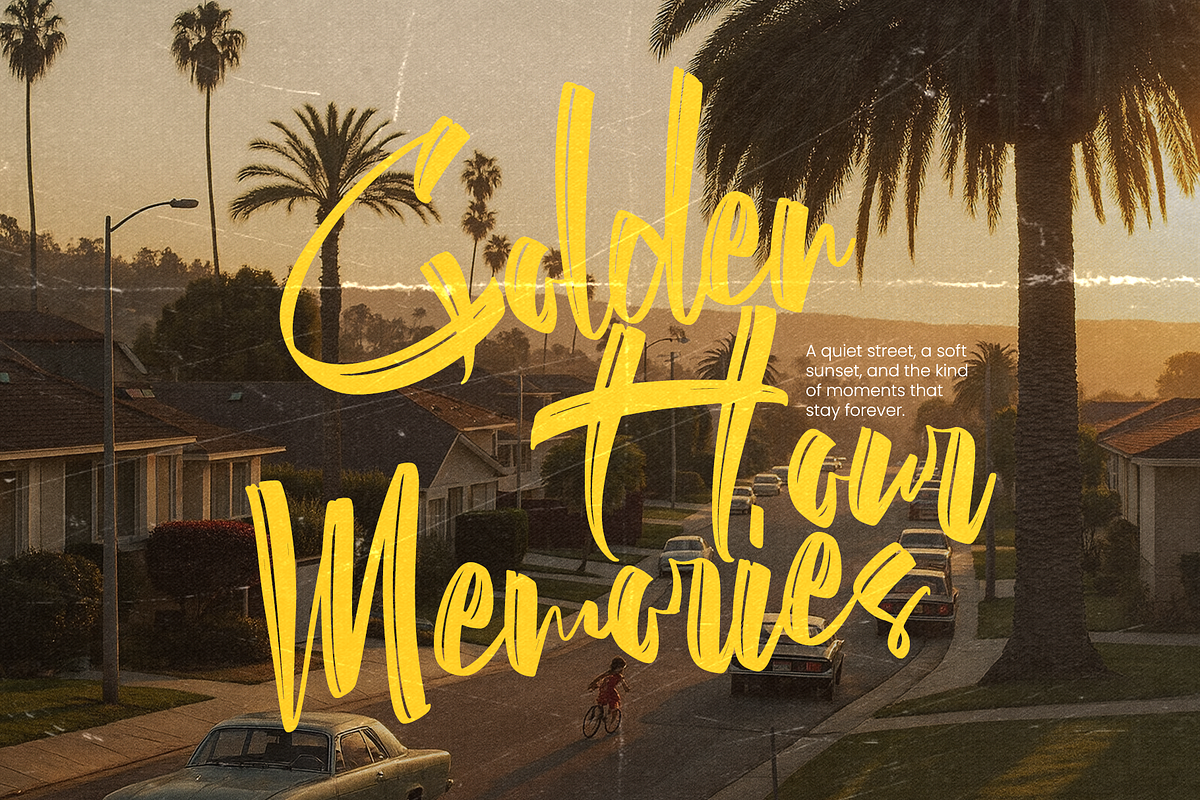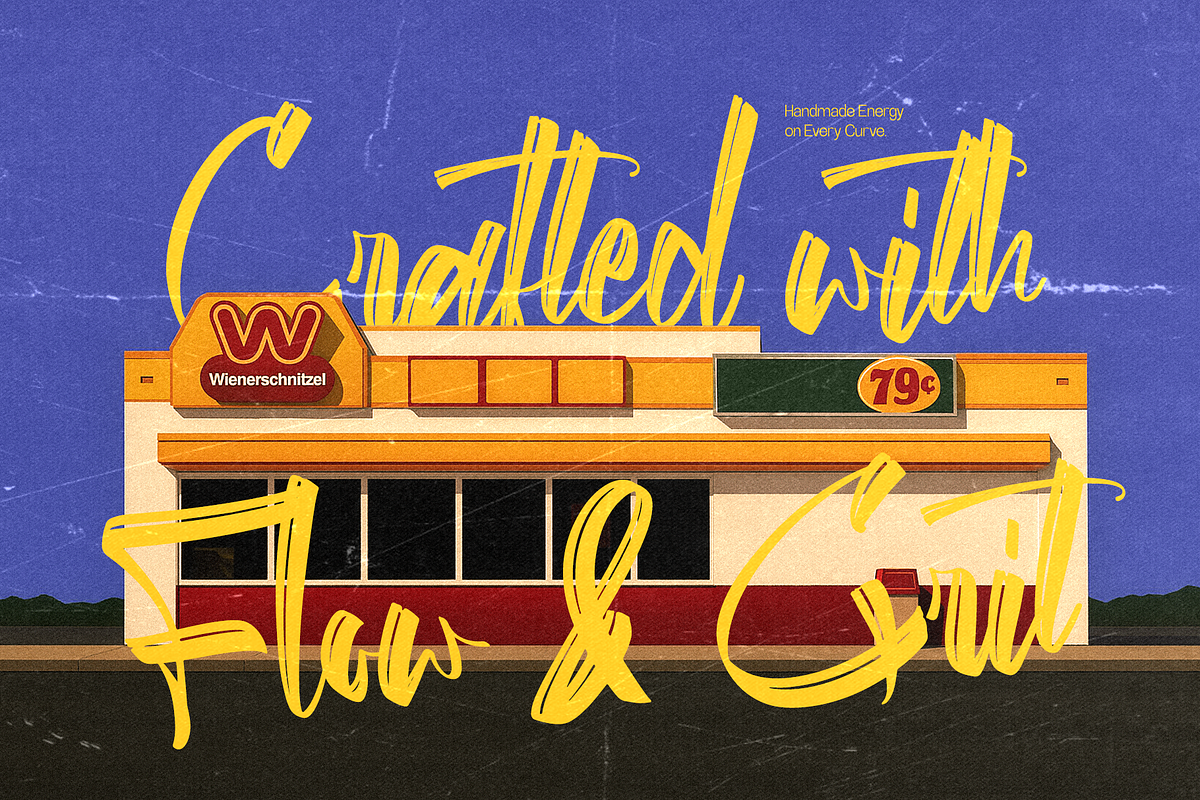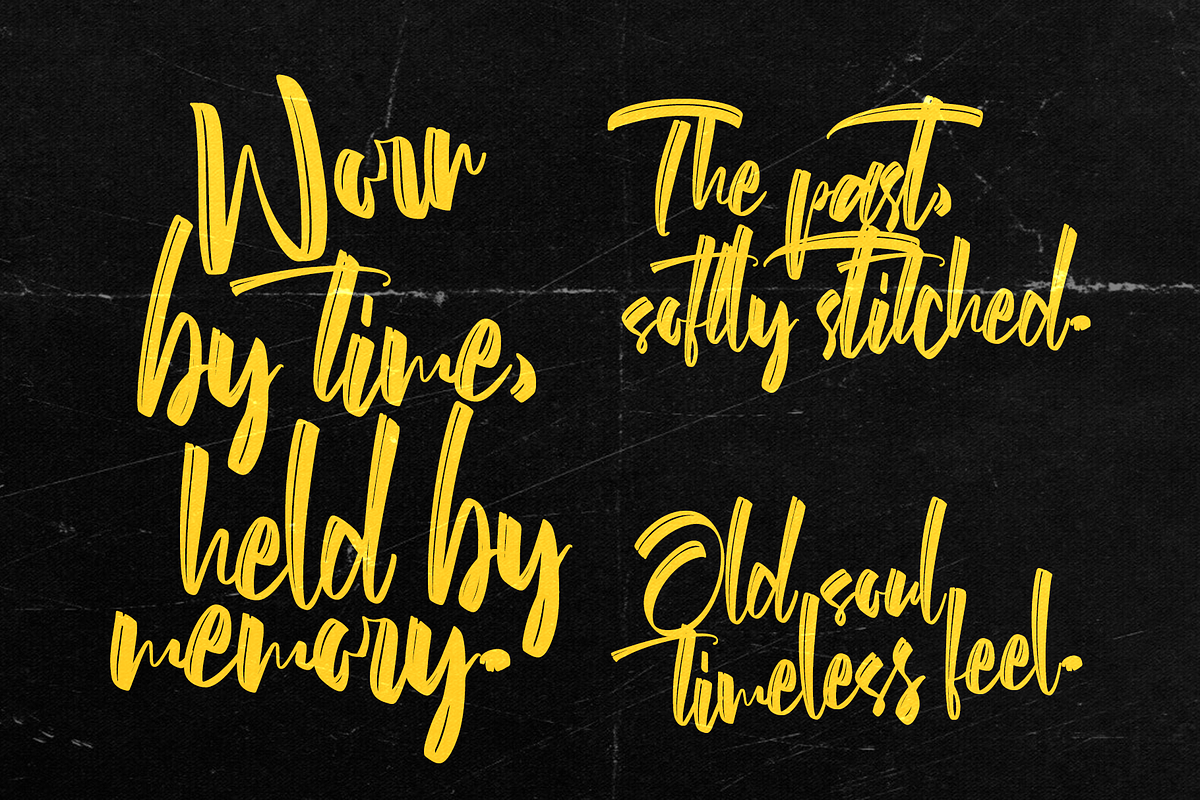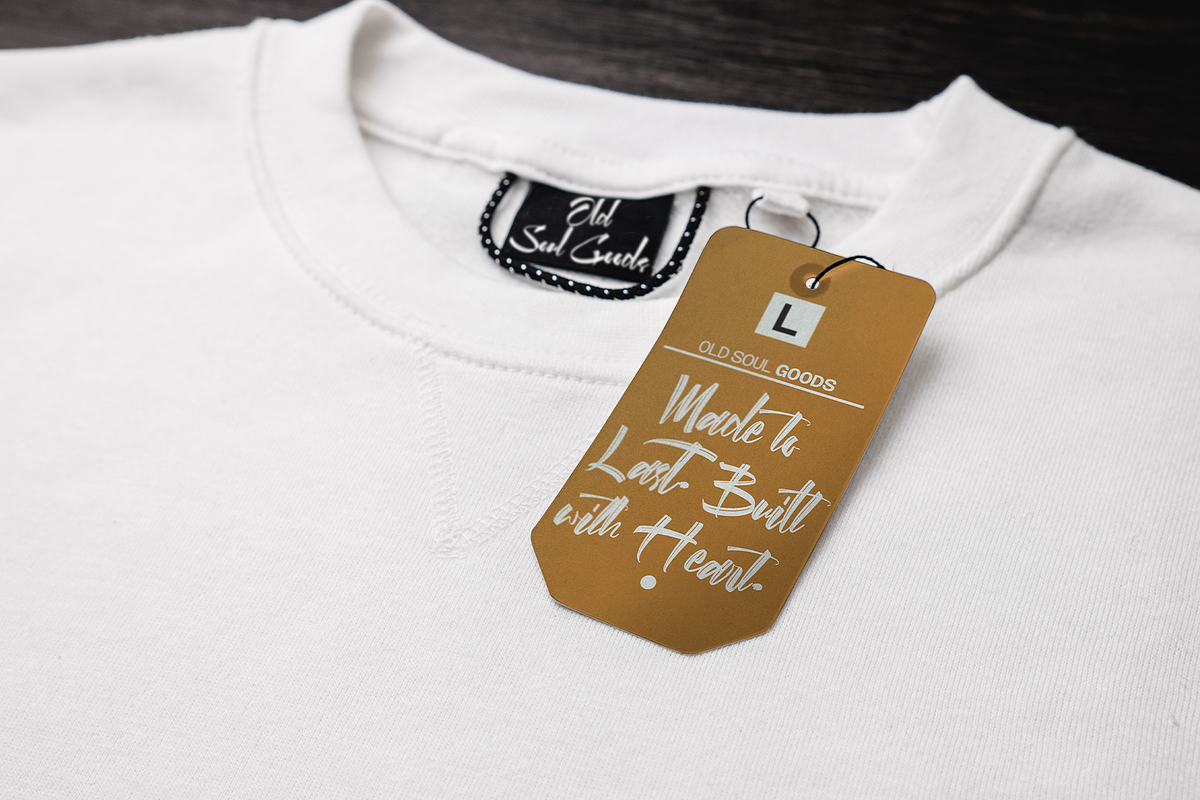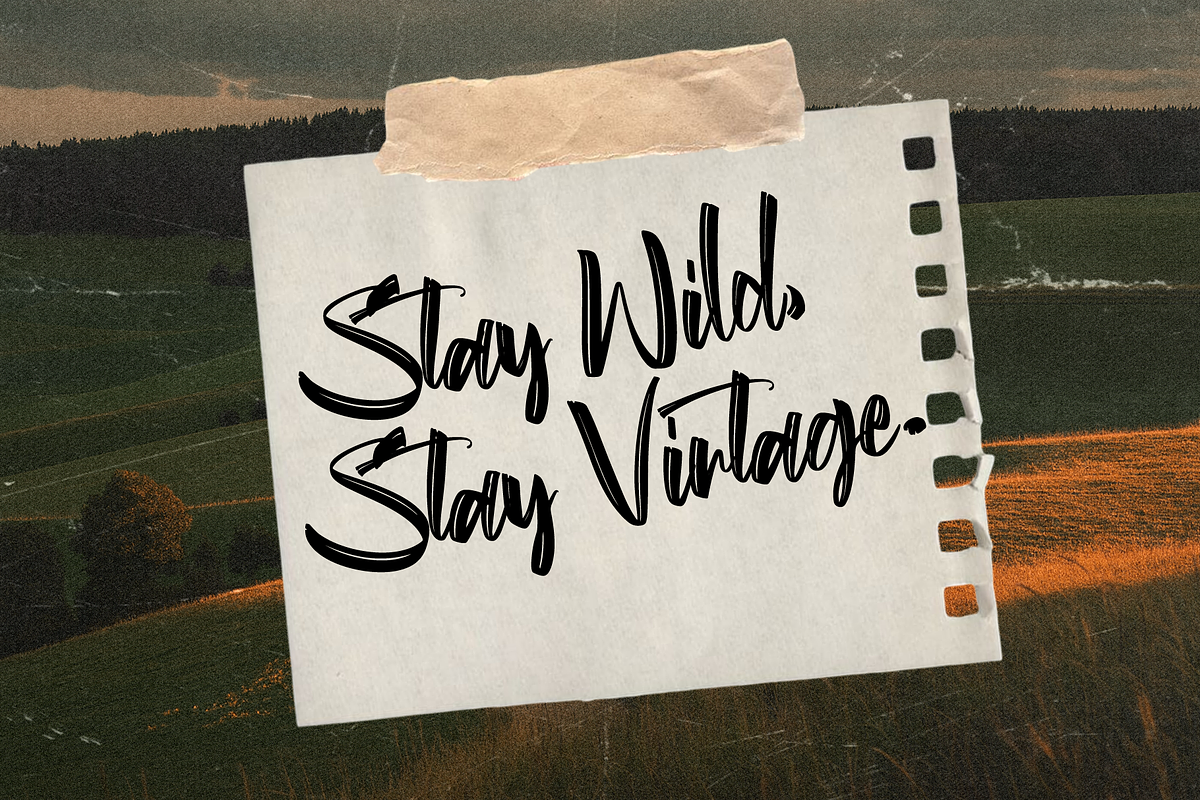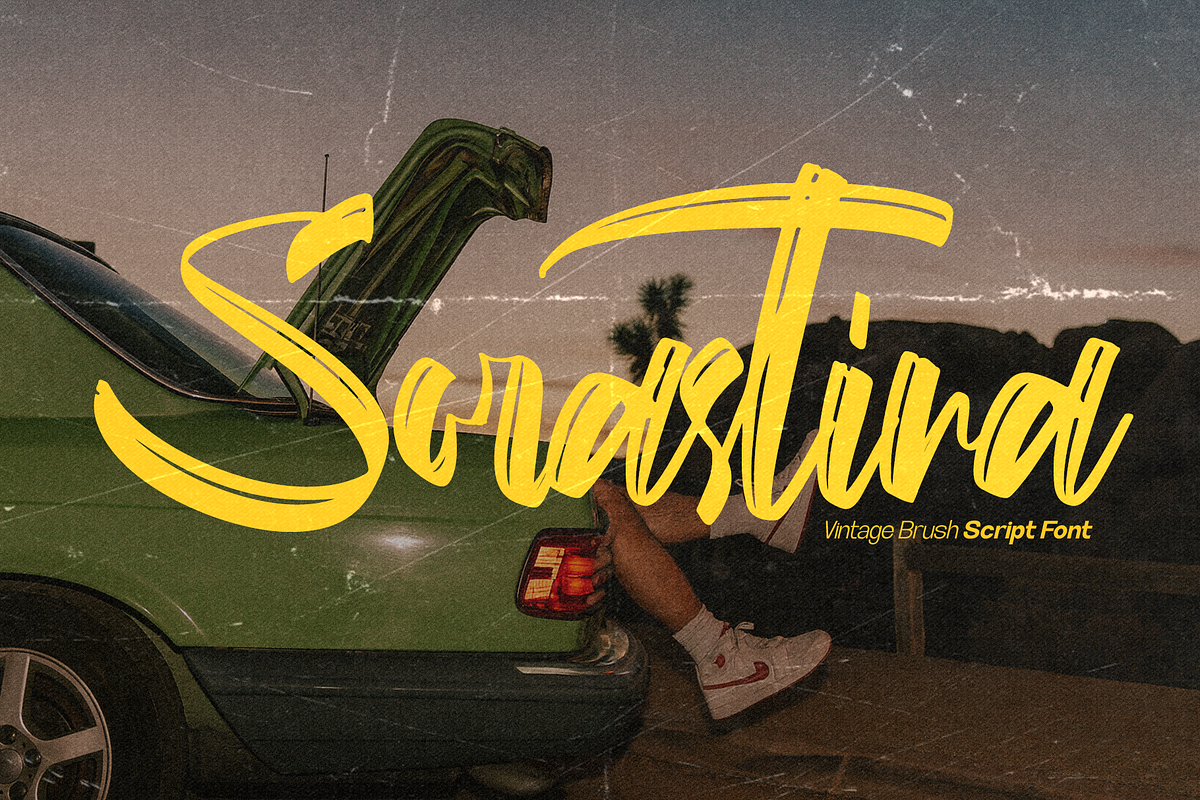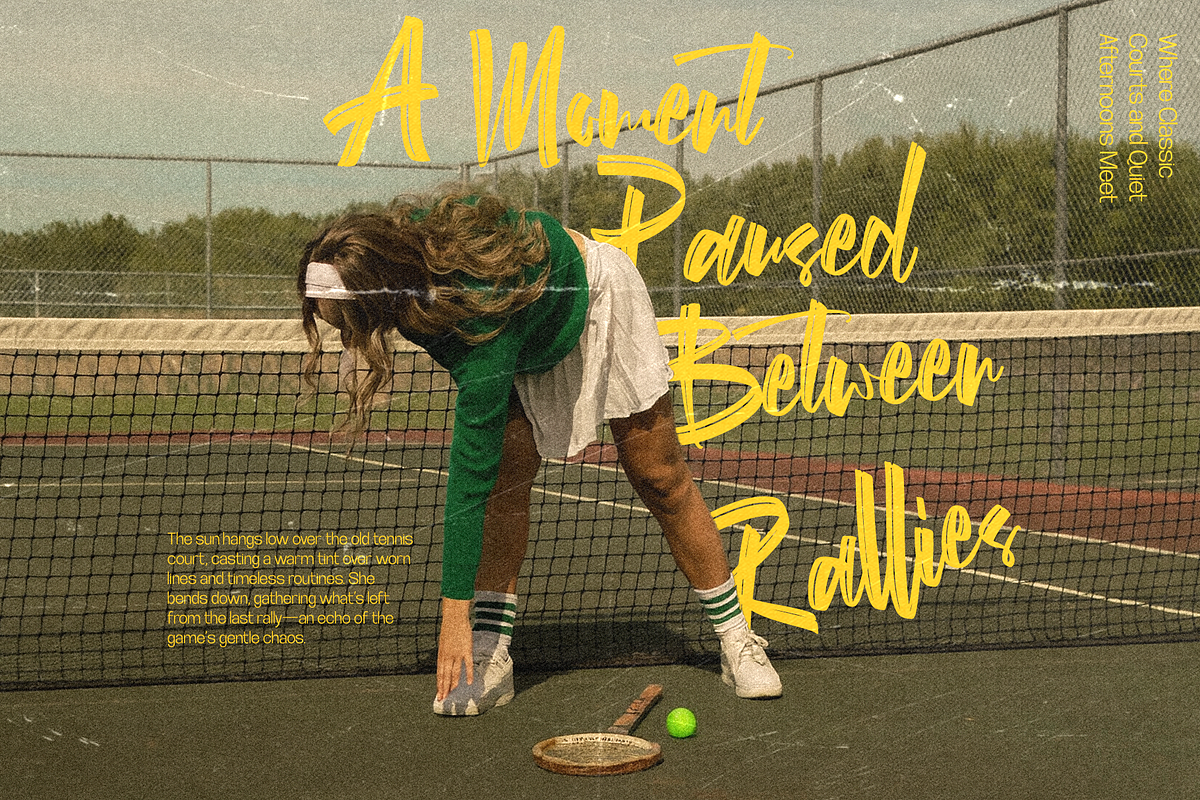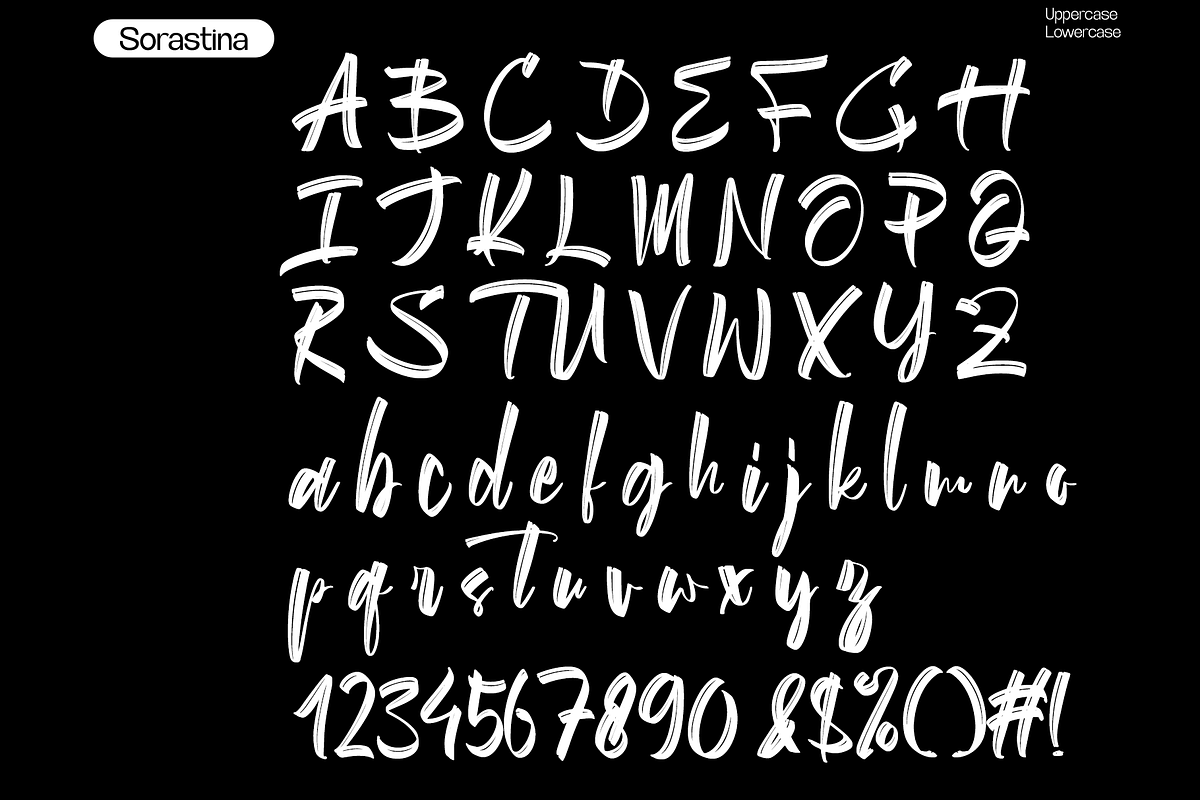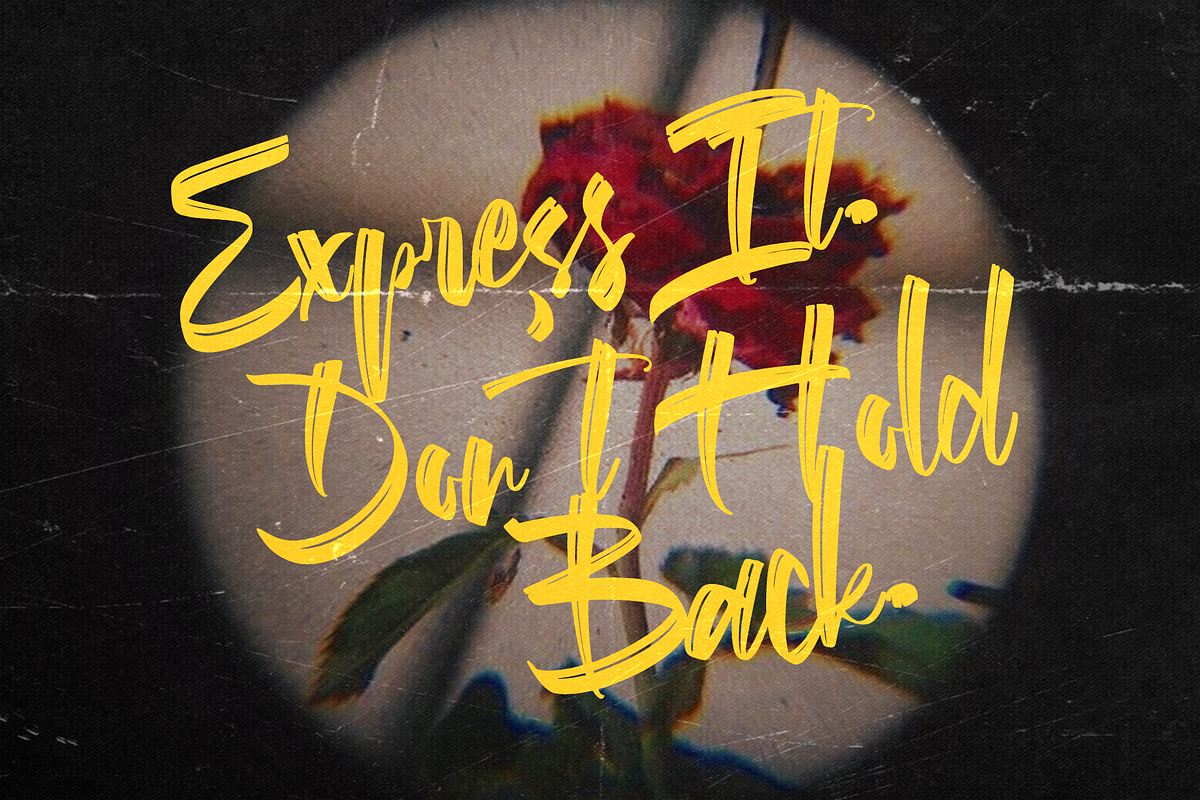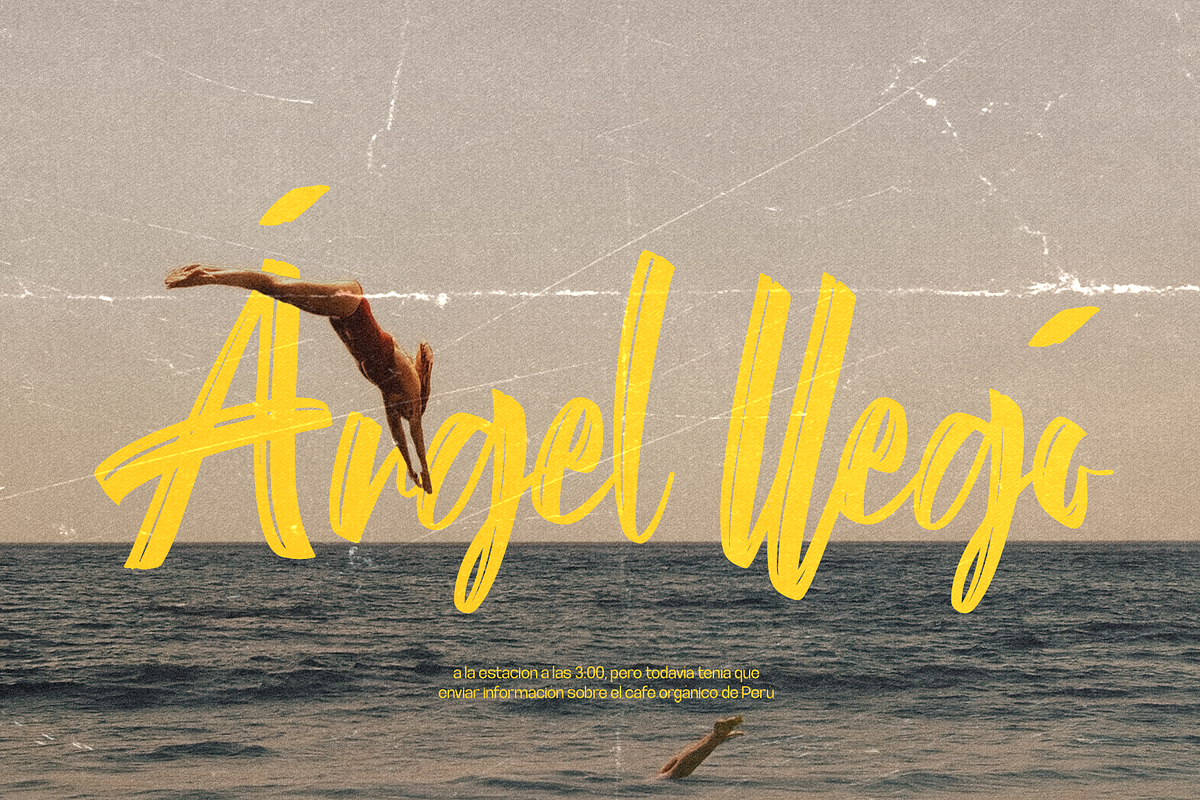
Sorastina - Vintage Brush Script
Sonastinal is a bold vintage brush script font inspired by classic automotive culture, retro road trips, hand-painted signage and rebellious street lettering. Its dynamic strokes, sweeping terminals and natural brush texture create a confident handwritten appearance with plenty of energy.
Designed for projects that need a strong, expressive and nostalgic personality, Sonastinal brings an authentic handcrafted character to logos, posters, merchandise, packaging and promotional graphics.
Sonastinal combines energetic brush lettering with vintage-inspired proportions. The font features bold strokes, natural irregularities and dramatic uppercase characters that make every word feel active and spontaneous.
Its flowing lowercase characters create a smooth handwritten rhythm, while the expressive capital letters work beautifully as focal points for logos, headlines and short statements. Sonastinal performs best at medium and large sizes, where its brush details and extended strokes can be clearly displayed.
The font works particularly well with retro photography, distressed textures, automotive imagery, bold color combinations and nostalgic editorial layouts.
Vintage brush script style
Bold and expressive handwritten strokes
Dynamic uppercase characters
Smooth and energetic lowercase rhythm
Natural handmade irregularities
Strong automotive and road-trip personality
Excellent readability at display sizes
Ideal for headlines, logos and short phrases
Works well with outlines, shadows and layered effects
Easy to pair with condensed sans-serif or bold serif fonts
Automotive branding
Custom garage identities
Motorcycle and car club logos
Vintage road-trip posters
Racing event graphics
Retro signage
Streetwear branding
T-shirt graphics
Merchandise designs
Music posters
Album cover artwork
Sports branding
Adventure campaigns
Café and bar identities
Food truck branding
Product packaging
Beverage labels
Sticker designs
YouTube thumbnails
Editorial headlines
Magazine covers
Promotional banners
Logo design
Lifestyle branding
Use the font at medium or large sizes to showcase its brush texture and energetic strokes. It is most effective for logos, headlines, product names, posters and short promotional messages.
Experiment with outlines, offset shadows, distressed textures and contrasting colors to strengthen its vintage automotive character. Pair Sonastinal with a bold condensed sans-serif font for supporting text, dates and additional information.